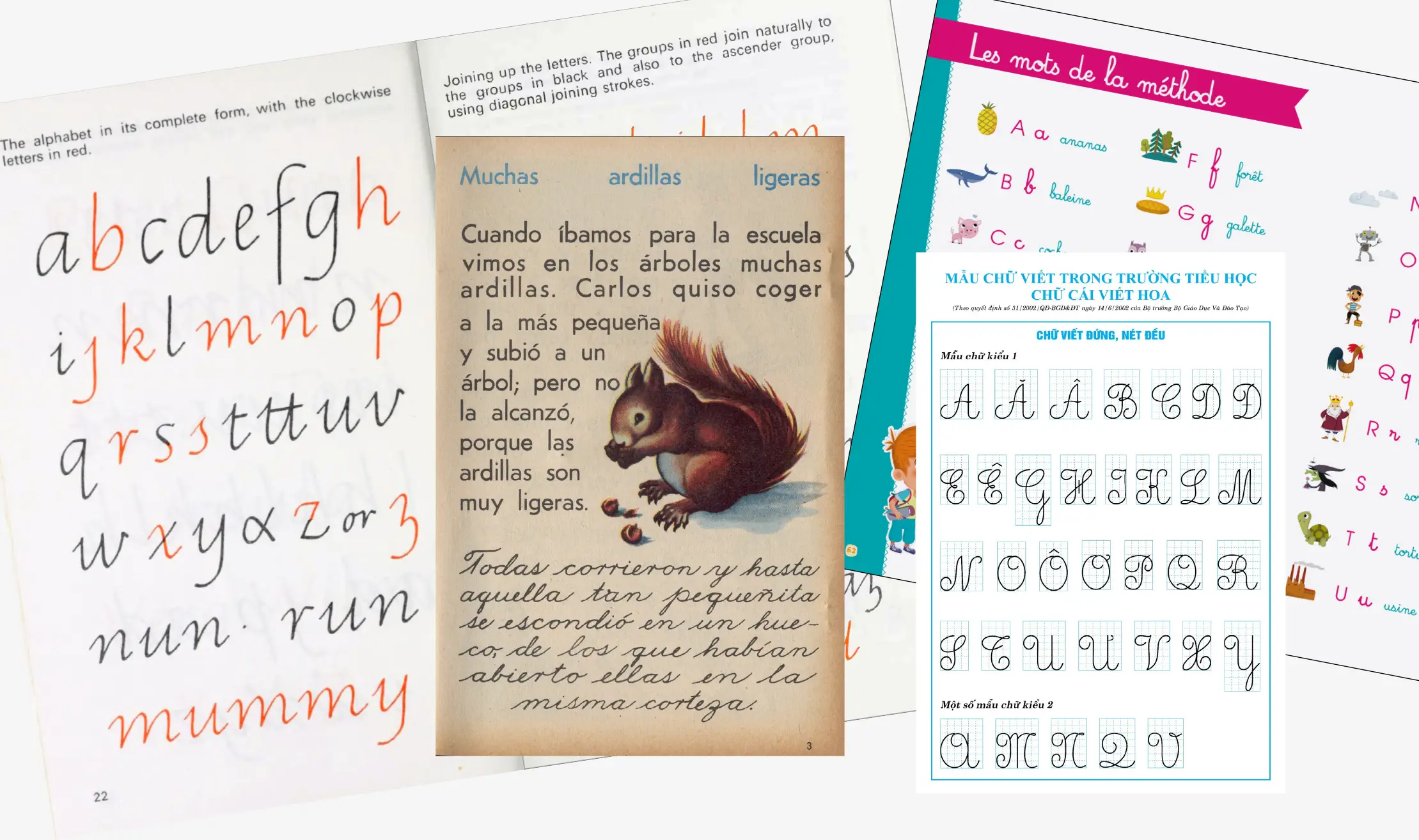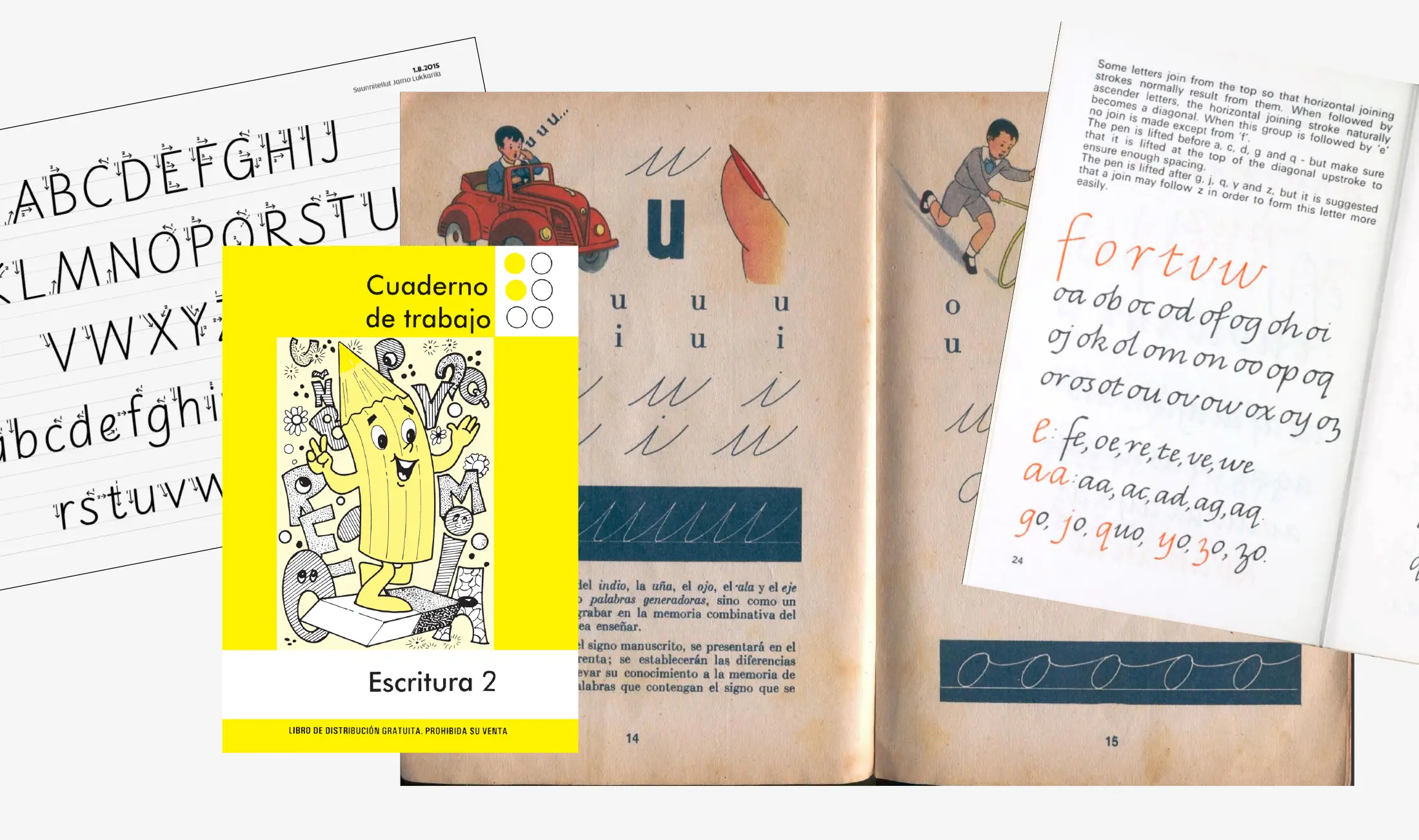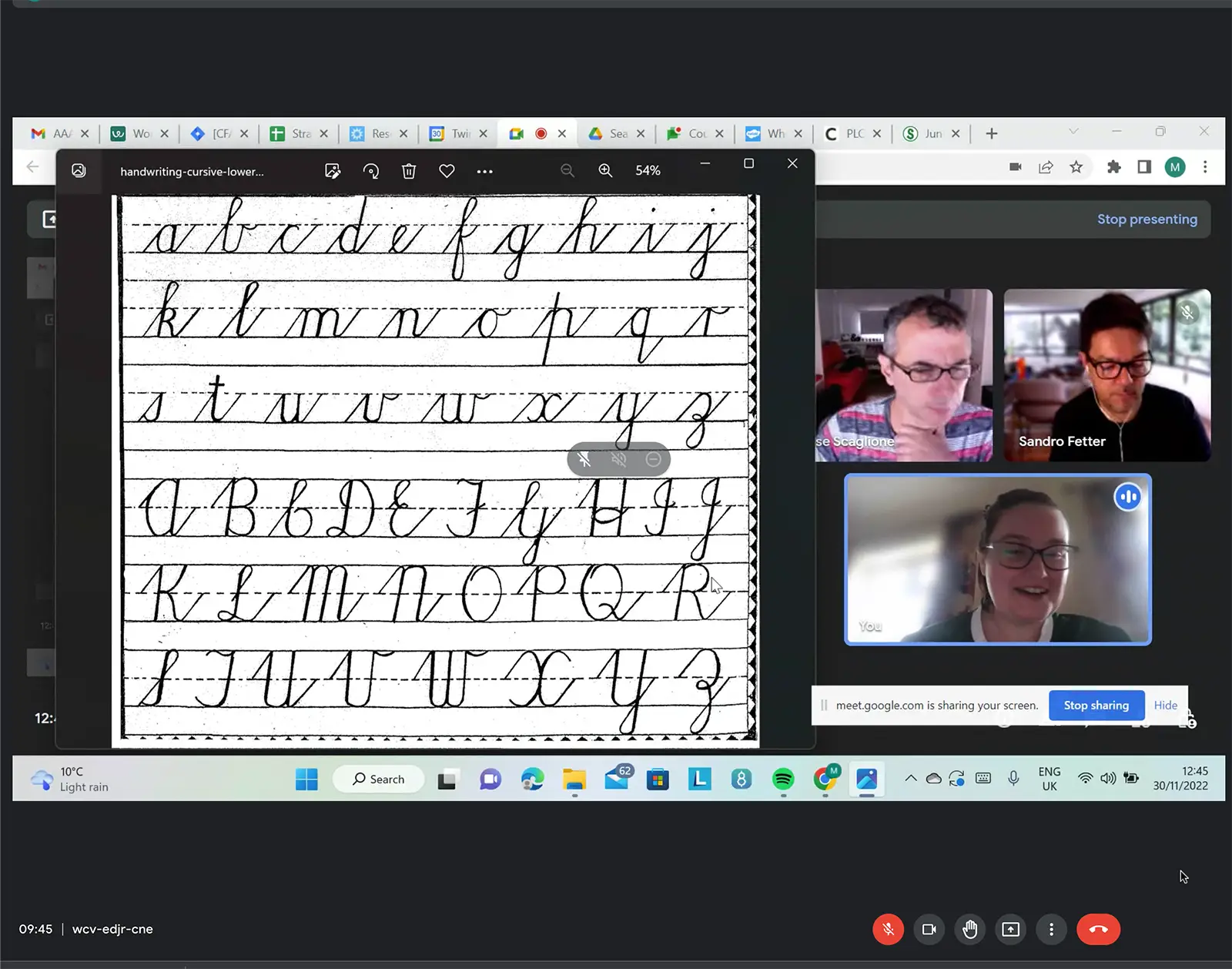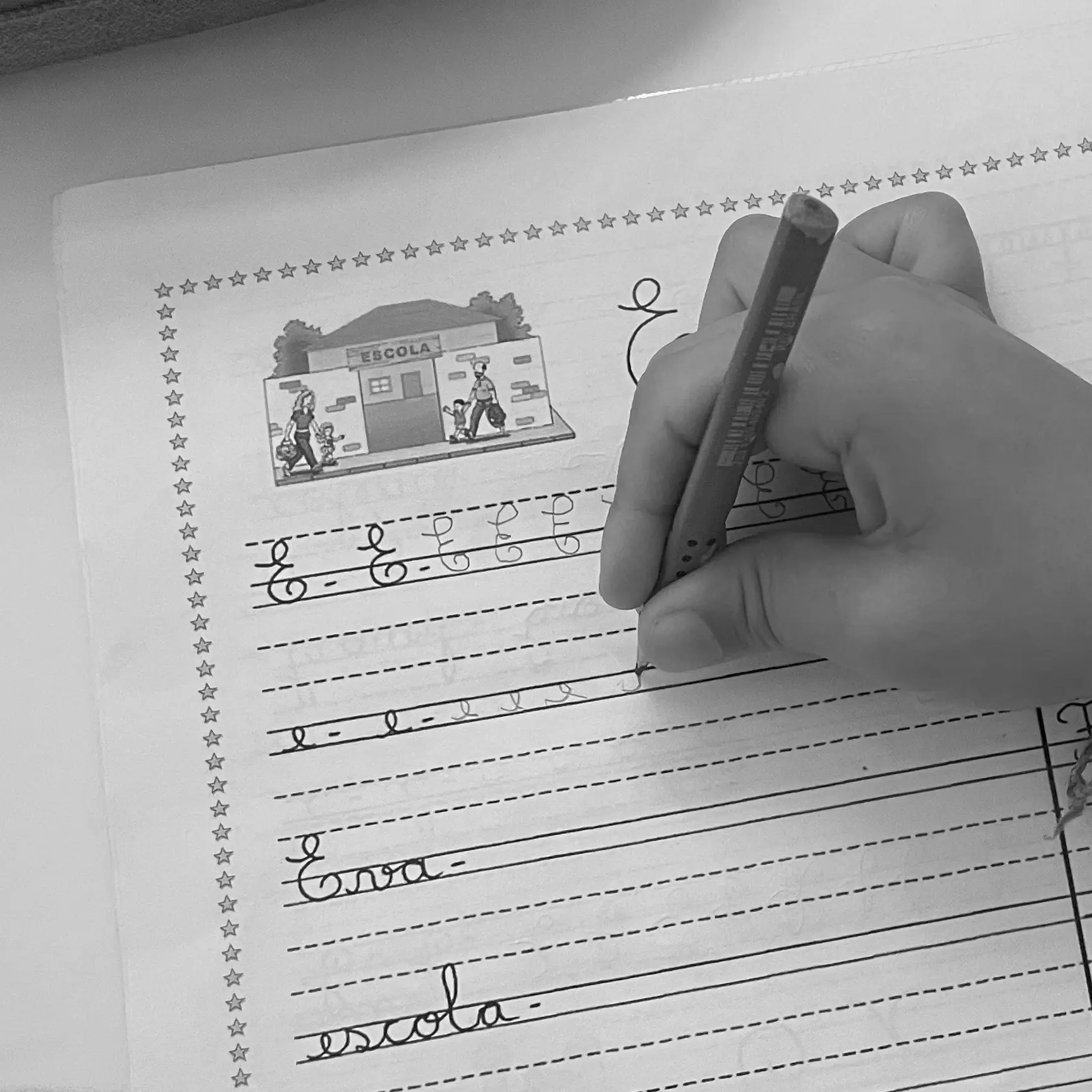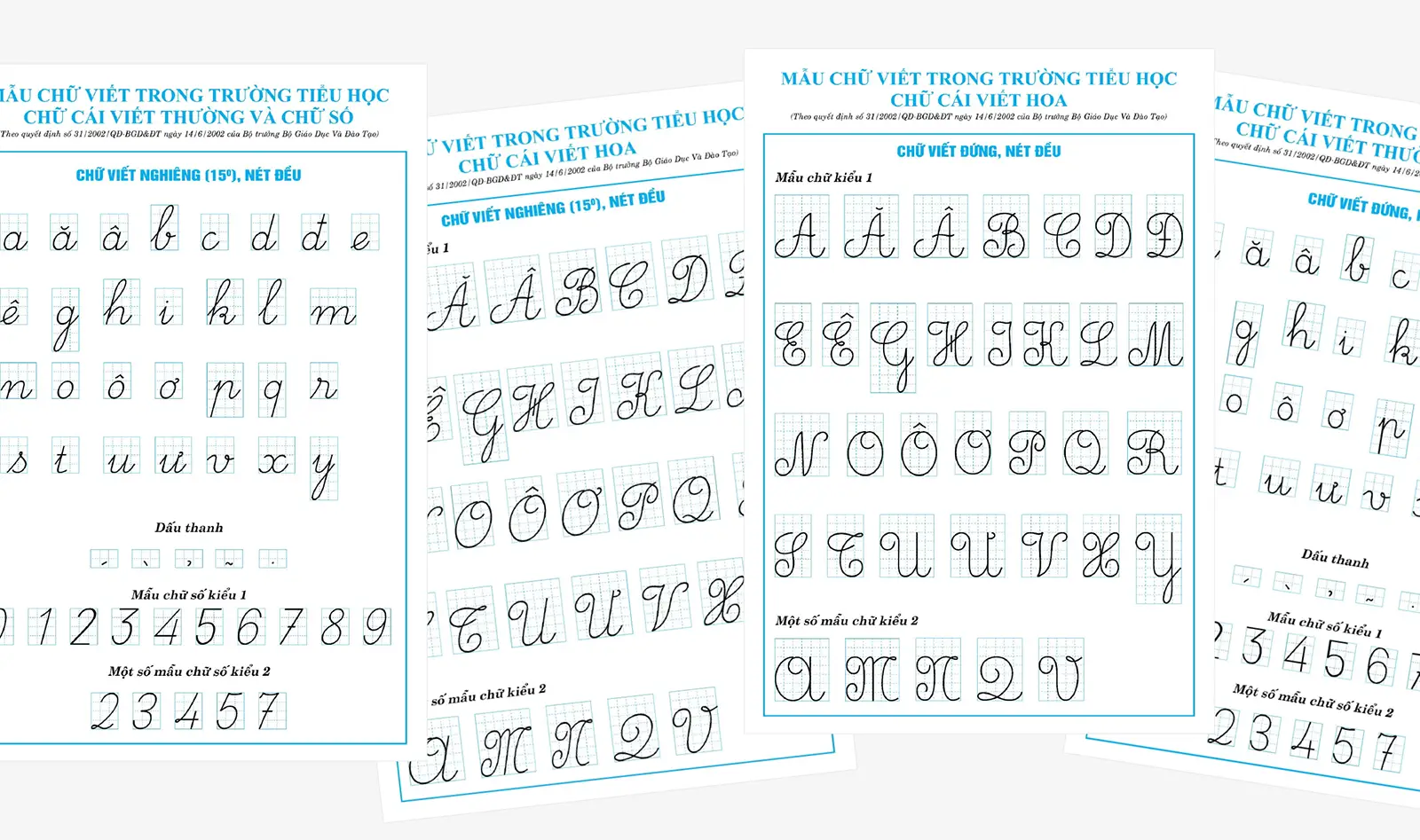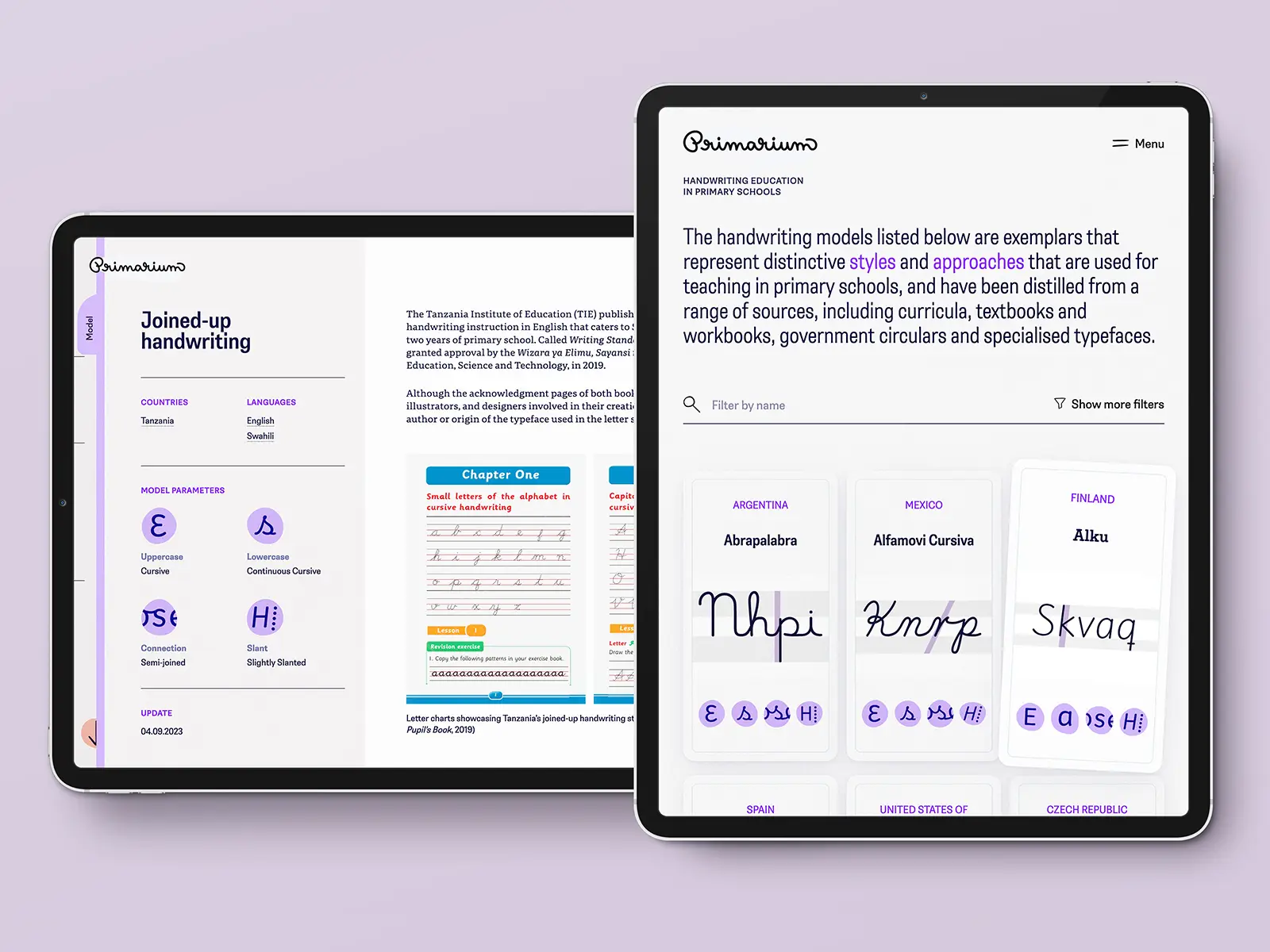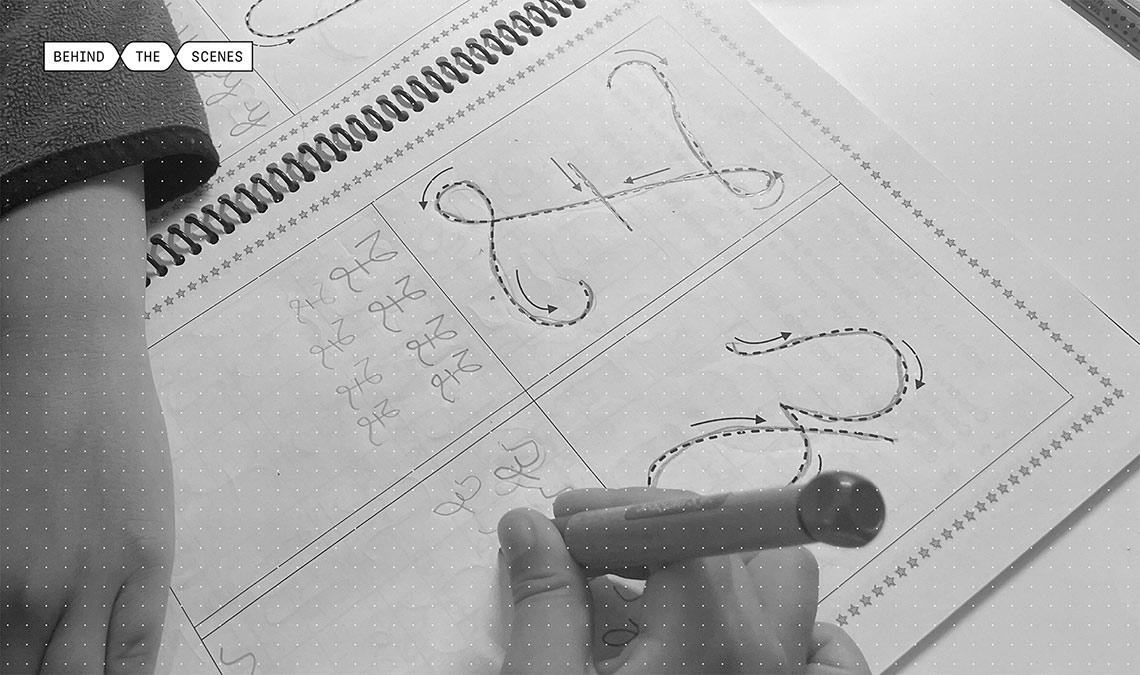
Making Primarium
In July 2023, we launched the Primarium website, our groundbreaking effort to study primary school handwriting education in the Latin script. Take a peek with us into the processes and hard work that made the project what it is today.
Primarium is a pioneering, global research project that answers the question, “How is Latin-based handwriting taught in primary schools?” As an educational initiative by TypeTogether, it brings together various methods and approaches of handwriting instruction, spanning five continents and about one-quarter of the world.
For the success of the project, it was essential to put together a team that was up for the challenge. We began with members of TypeTogether’s core group: Veronika BurianJosé ScaglionePooja Saxena and Cecilia Brarda. We then included Sandro Fetter, who is professor of design at the Federal University of Rio Grande do Sul (UFRGS), for his the domain expertise and since he studied school handwriting for his doctorate. Later, we also brought on Caroline Schäfer, a graduate student and teaching assistant at UFRGS to help us prepare our research for publication.
We realised almost immediately that the information readily available for different countries varied greatly, and it was imperative our research did not become biased as a result. To ensure consistency, we first conducted preliminary research for a small number of countries with assistance from Sandro Fetter. The results helped us create a list of research questions we wanted to investigate in each region. After receiving and incorporating critical feedback on this list from Petra Černe Oven, we began using the questions to propel our work forward. Once these questions had been applied to more countries, we took a step back again to evaluate if they were meticulous enough to produce consistent results across countries and researchers, and then fine-tuned them one more time. This iterative process helped us devise and implement a robust methodology that would, in turn, produce rigorous research.
The issue of handwriting instruction in primary schools finds itself at the intersection of various specialised fields: education and policy, history and culture, and of course calligraphy, among others. Bringing these subjects together required expanding our sources of information to as large a pool as possible. Sandro emphasised, “Integrating knowledge from multiple fields is key to understanding and shaping the future of handwriting education in the digital era.” Not only that, he reiterated, “Design can play an important role in supporting educators by developing effective teaching methods, strategies, and assistive tools for early childhood handwriting skills.”
Examples of handwriting models from different countries. For more information and full sources, visit primarium.info.
Examples of handwriting models from different countries. For more information and full sources, visit primarium.info.
Legislative documents helped us understand the educational aspirations of different countries and provided context for what we saw happening on the ground. Teaching resources, like textbooks and handouts studied in tandem with national curricula and classroom syllabi, provided a glimpse into how policy transformed into tangible tools for educators. Material produced by private educational publishers, including marketing information, allowed us to grasp how handwriting was being taught when governments took a hands-off approach toward its instruction.
All this desk research was complemented by interviews with teachers, parents, educationists, administrators, and designers. Each person we spoke to provided a unique perspective that enriched our understanding of handwriting education in their region.
Multiple online meetings with subject experts since 2022, and still ongoing.
From research to writing
On the website, our research is neatly divided into two interconnected pathways: either exploring by country or diving straight into learning about the most important approaches to handwriting instruction in each region.
The essays for every country come with a detailed and diligently referenced bibliography, illustrated with teaching samples from historical and contemporary sources. Along with that, there is background information on the most important language in each country, which helps contextualise the linguistic identity of the region. Whenever possible, our focus was on illuminating local historical or contemporary figures in each country who had a lasting impact on how handwriting is taught. Similarly, we made an effort to trace threads through history to find how styles and approaches traveled between regions.
The handwriting models, which are exemplars distilled from our analysis of popular approaches, are all represented through original infographics that highlight their most compelling and notable features. “With these concise visual snapshots of each key handwriting model,” Pooja believes, “it will be easy for fellow researchers to compare and contrast them and appreciate how traditions of handwriting instruction have developed in different parts of the world.”
A sampling of brand new infographics created to highlight the particularities of handwriting models can be found in primarium.info.
We reached out to Elena Ramirez of Ashler Design to help us craft a website for the project. Like our writing, we wanted the website to be inviting and usable to all readers, whether they were educators and parents, researchers, or lifelong learners interested in the subject.
There were three main goals we wanted Ashler Design to consider: (1) having ease of adding new content since the research is ongoing; (2) ensuring intuitive navigation so the website is friendly to all readers; and (3) creating a way to access all the related information without forcing the user to change pages every time they wanted to dig deeper.
Playwrite is a typeface engine that allows the creation of primary school fonts on the fly. The font families are one of the practical results of the Primarium research project, which studies handwriting instruction methodologies around the world. Our findings informed the design of the Playwrite glyphs, with regards to the calligraphic models currently in use, their development, and rationale. Playwrite will be released in 2024